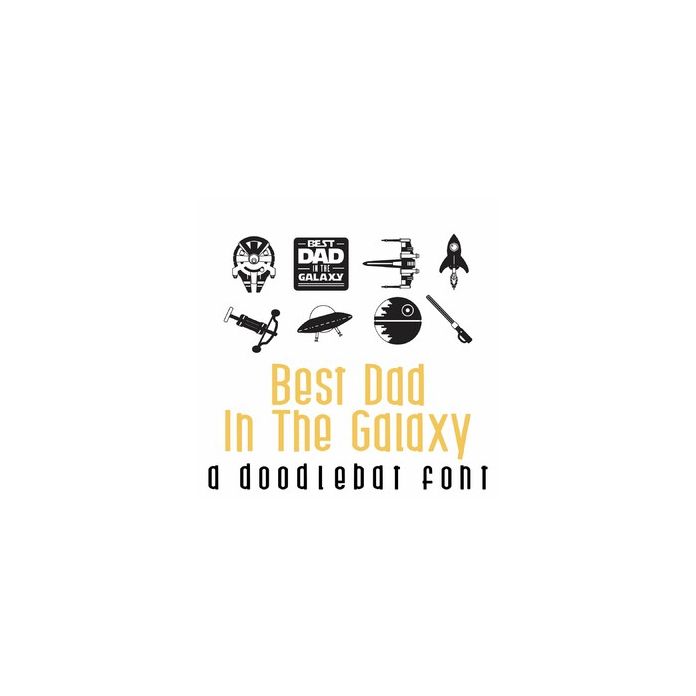
This fun doodlebat font features 33 Father's Day and space-themed images and puns. Perfect for cards, crafts, gifts, decor, scrapbook pages, planner stickers and more!